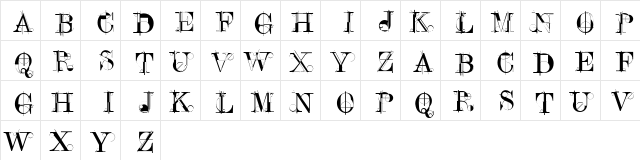
ConstruCaps Regular
Design Context for ConstruCaps Typeface
ConstruCaps is a composed and adaptable typeface that performs quietly and consistently across a wide range of design contexts.